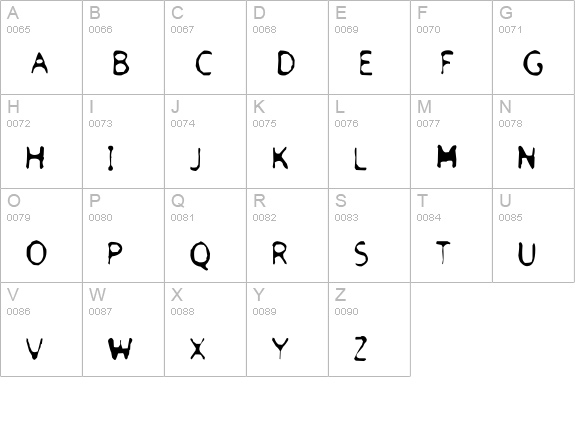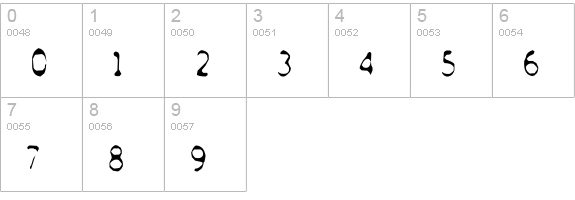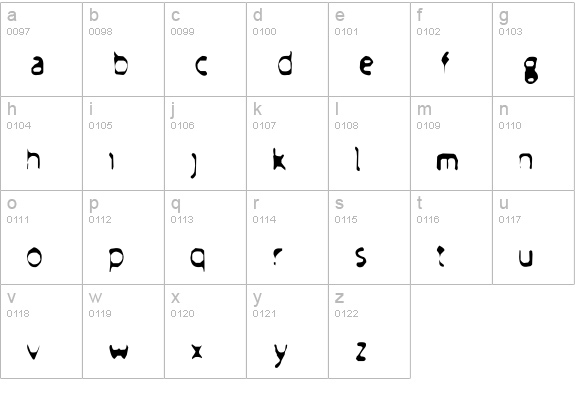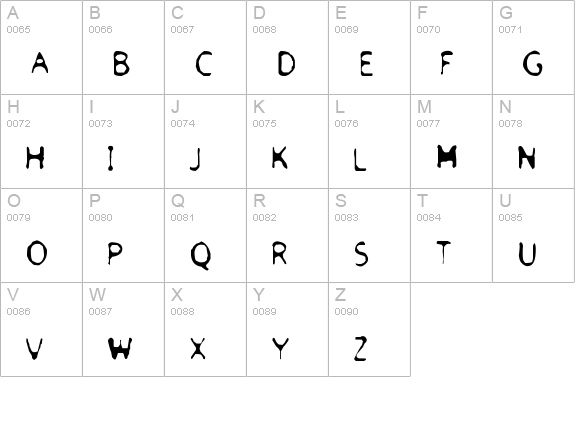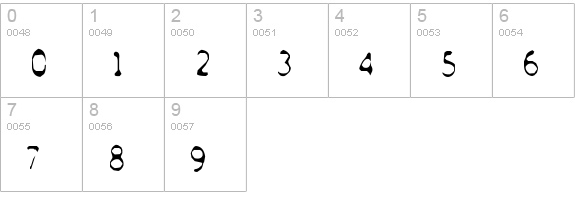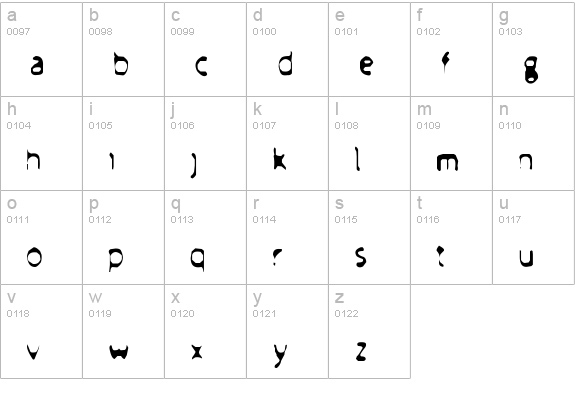
Froufrou Font Details
Introducing the exquisite Froufrou font, a whimsical and elegant typeface that exudes sophistication and charm. This versatile font features delicate curves and intricate details that add a touch of luxury to any design project. Perfect for invitations, branding, and more, Froufrou font will bring a sense of grace and refinement to your creations. The best part? Froufrou font is available for free download at FontsMarket.com. Take advantage of this incredible offer and enhance your designs with this beautiful and unique typeface today. Elevate your projects with the timeless beauty of Froufrou font and make a lasting impression on your audience.